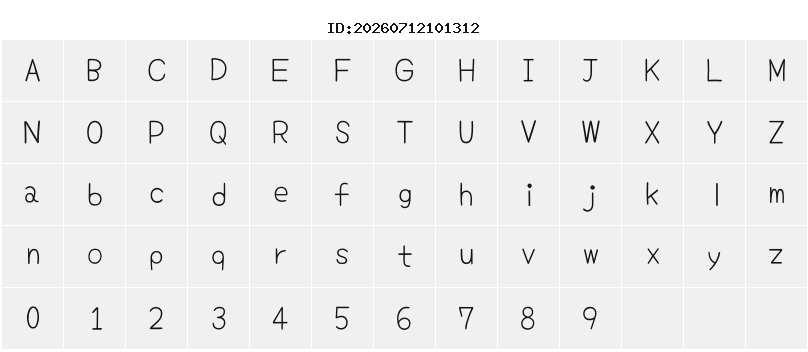
有梦体 Preview
• Font Name: 有梦体
• Full Font Name: 有梦体
About 有梦体.otf
有梦体.otf is a modern, elegant sans-serif font designed for ultimate readability and visual harmony. Perfect for branding, headlines, web design, and print materials.